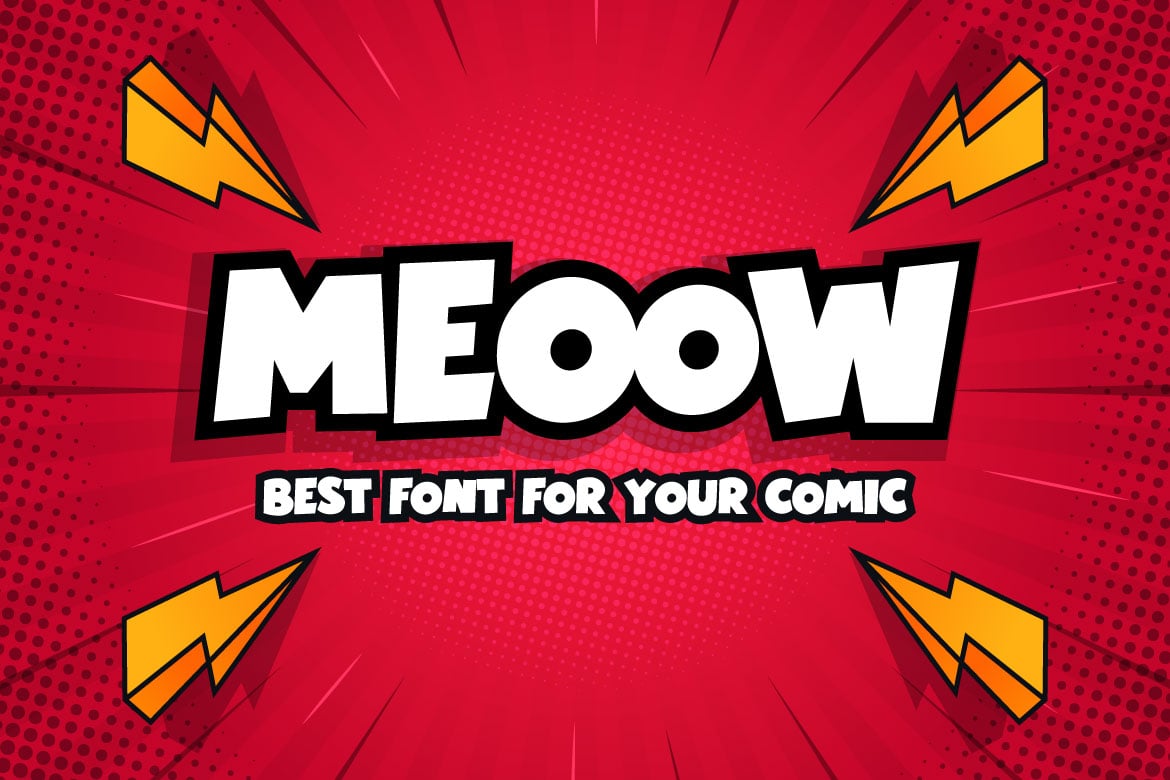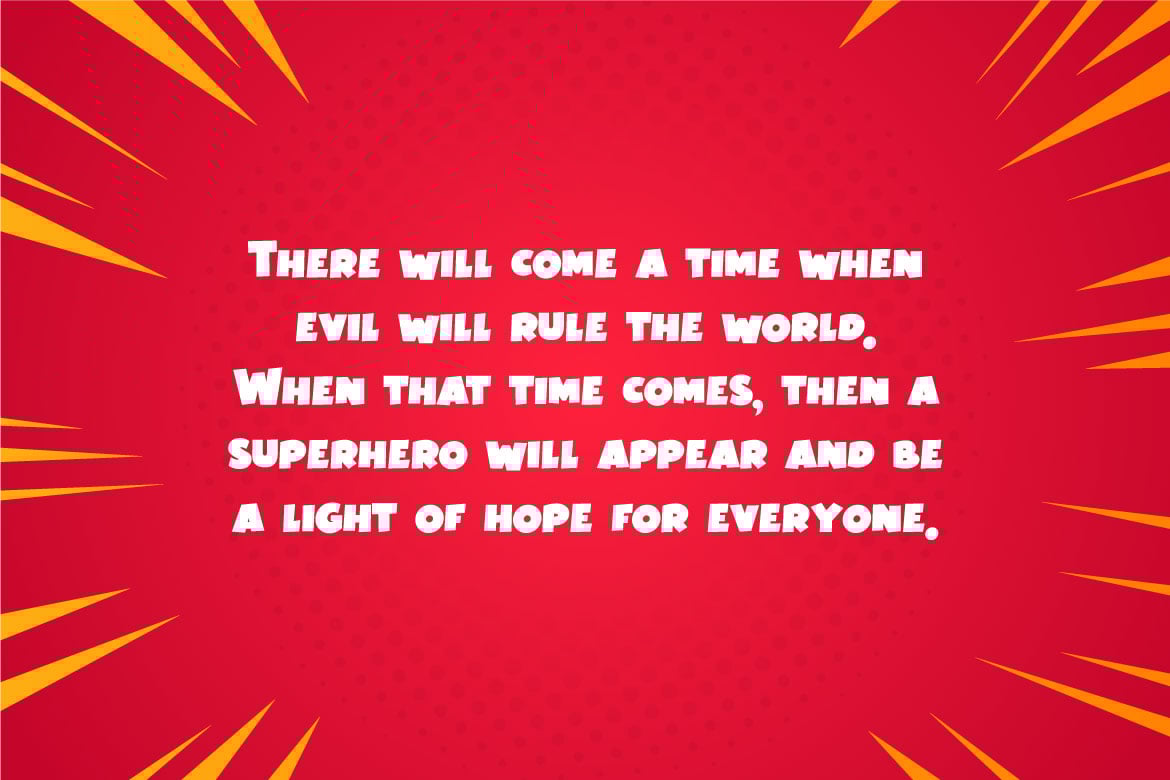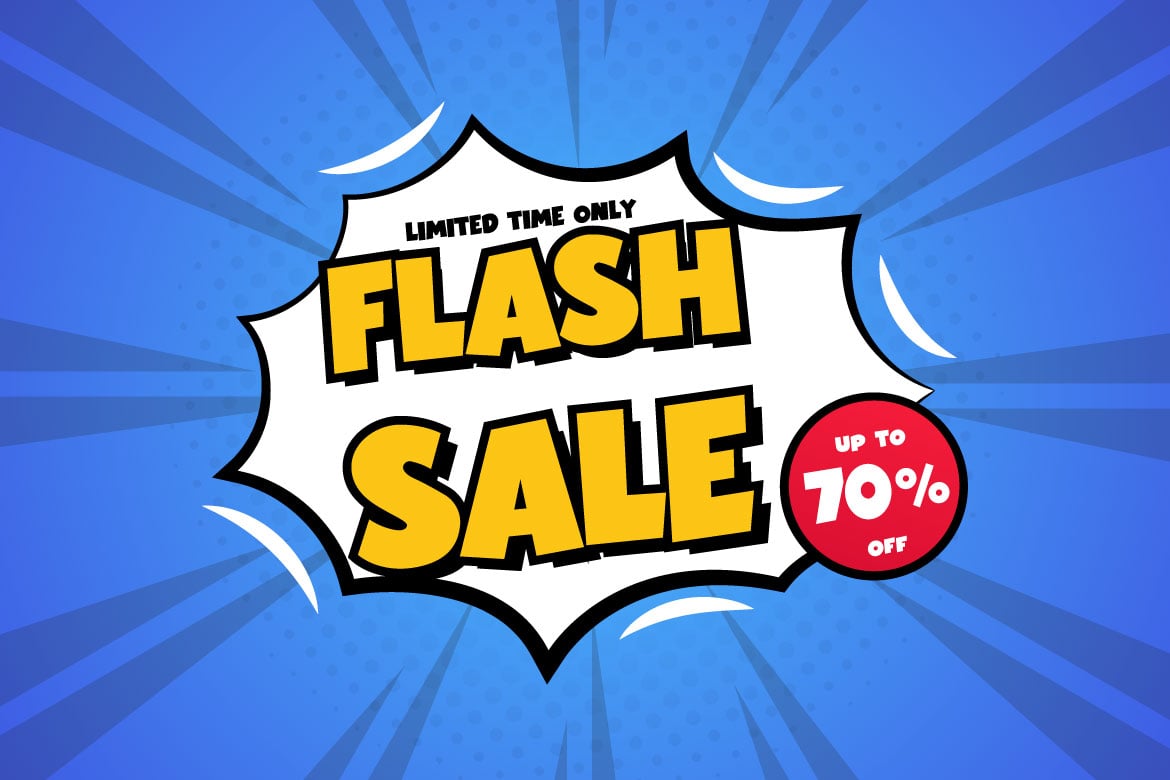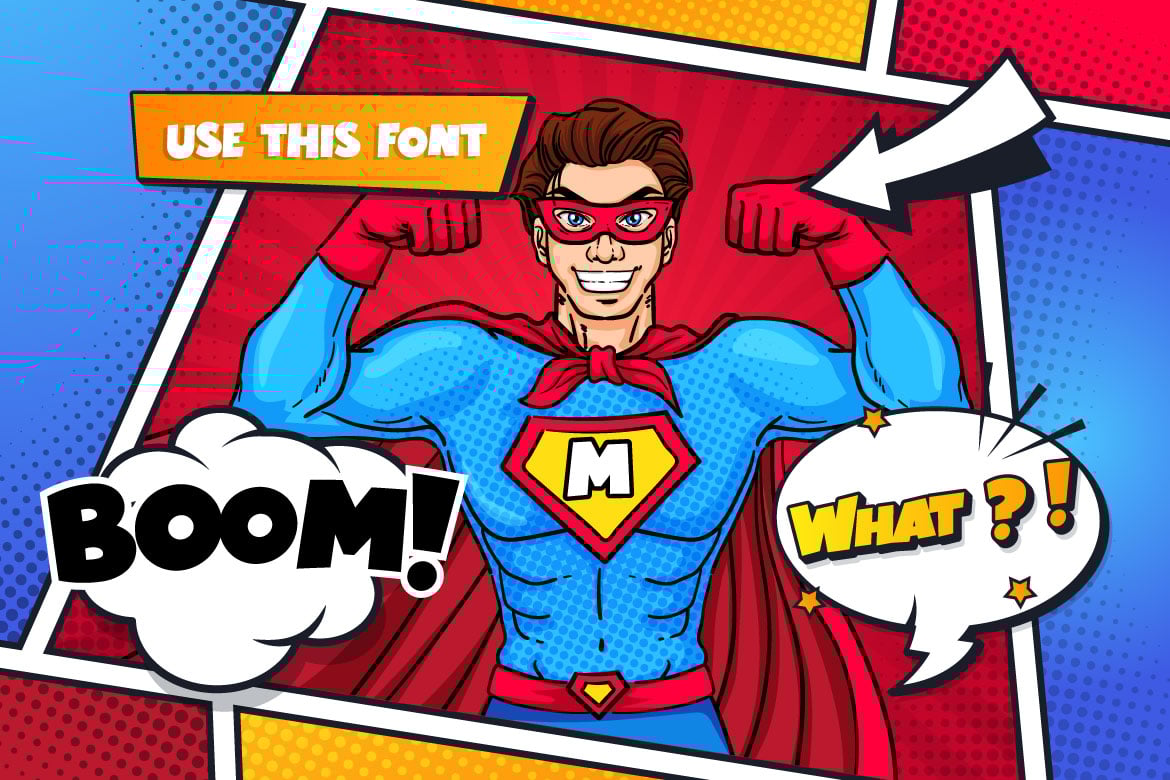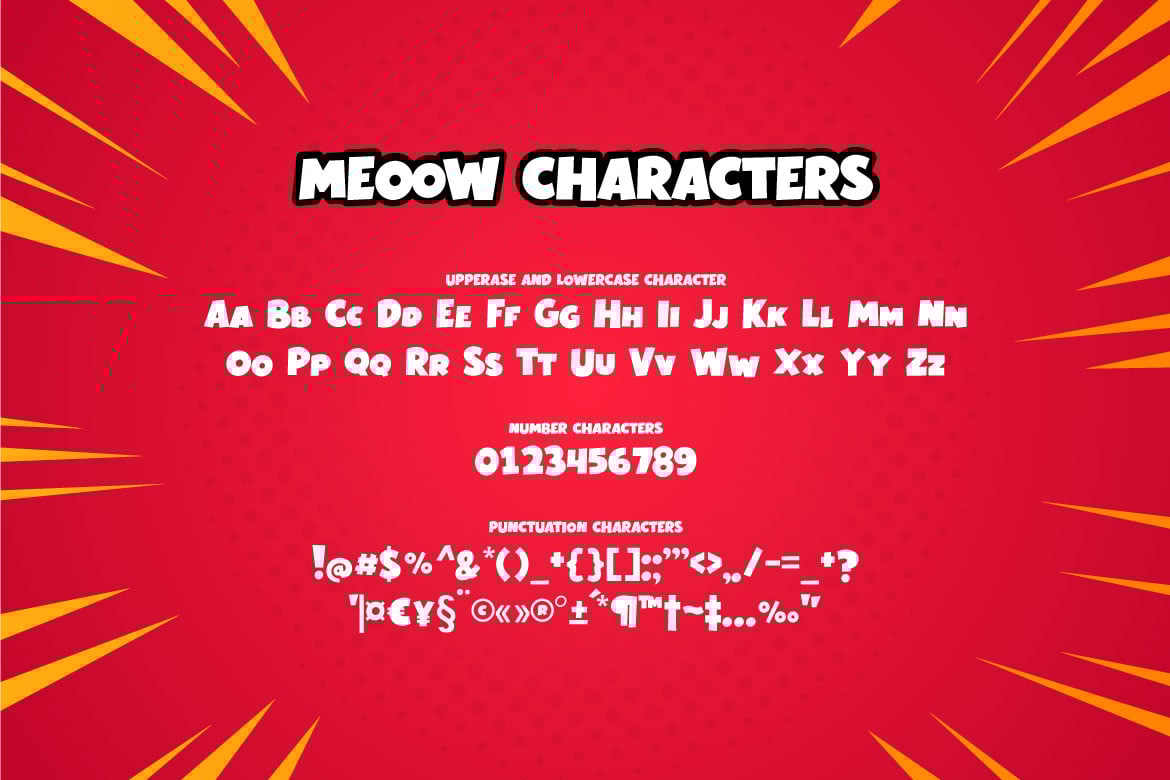
Meeow – Playful Comic Font
Introducing you MEEOW, a playful comic font. This font is suitable for comic book, children book, flyer, poster, book cover, card, merchandise, packaging etc. This font has lowercase and uppercase style. Try this font and feel the happiness inside the word! Thank you!
Multilingual accent:
ÀÁÂÃÄÅÆÇÈÉÊËÌÍÎÏÐÑÒÓÔÕÖØÙÚÛÜÝÞßàáâãäåæç¢èéêëìíîïðñòóôõöøùúûüýþÿŁłŒœŠšŸŽž†‡€¥§¡¿